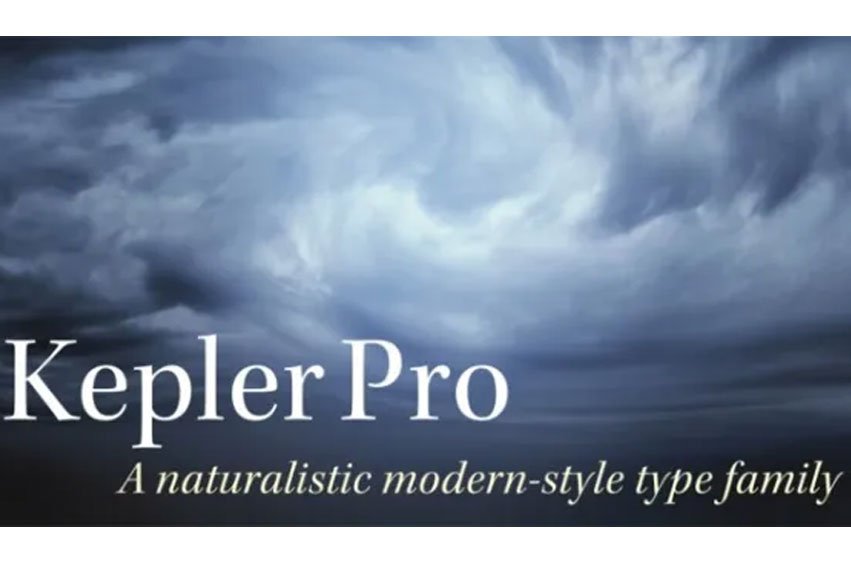
Kepler Font Family is a contemporary type family designed by Robert Slimbach in the tradition of classic modern 18th century typefaces.
Modern typefaces are known for their cool intellectual quality, but Slimbach’s Kepler multiple master captures the modern style in a humanistic manner. It is elegant and refined with a hint of Oldstyle proportion and calligraphic detailing that lends it warmth and energy.